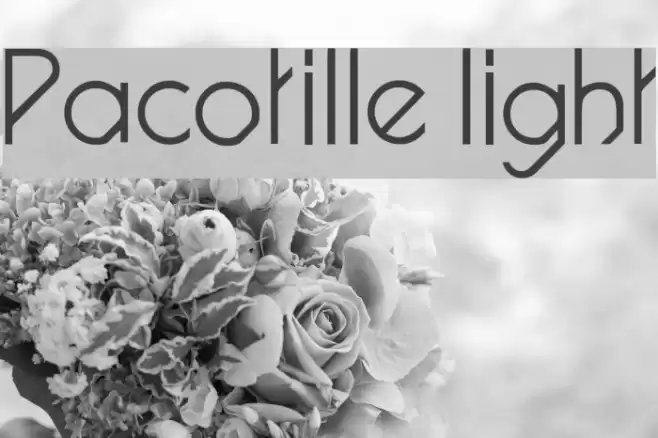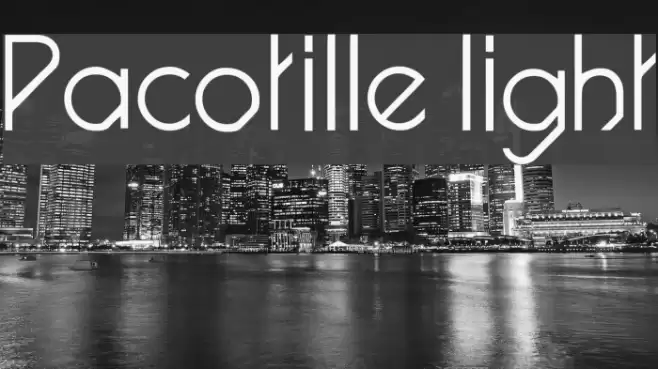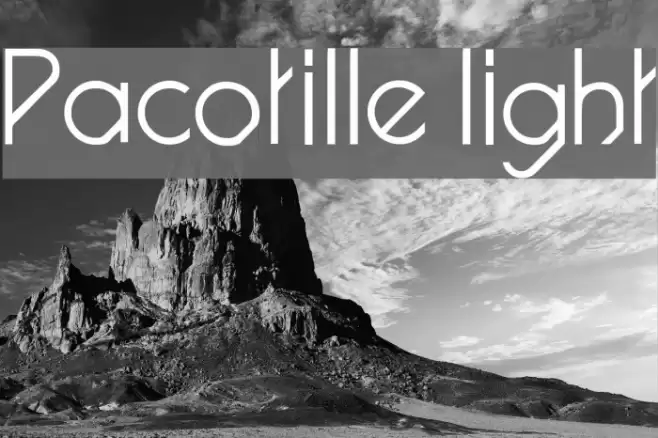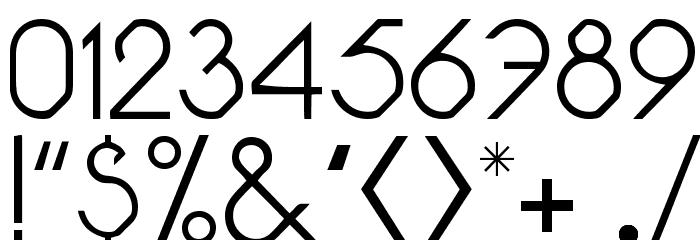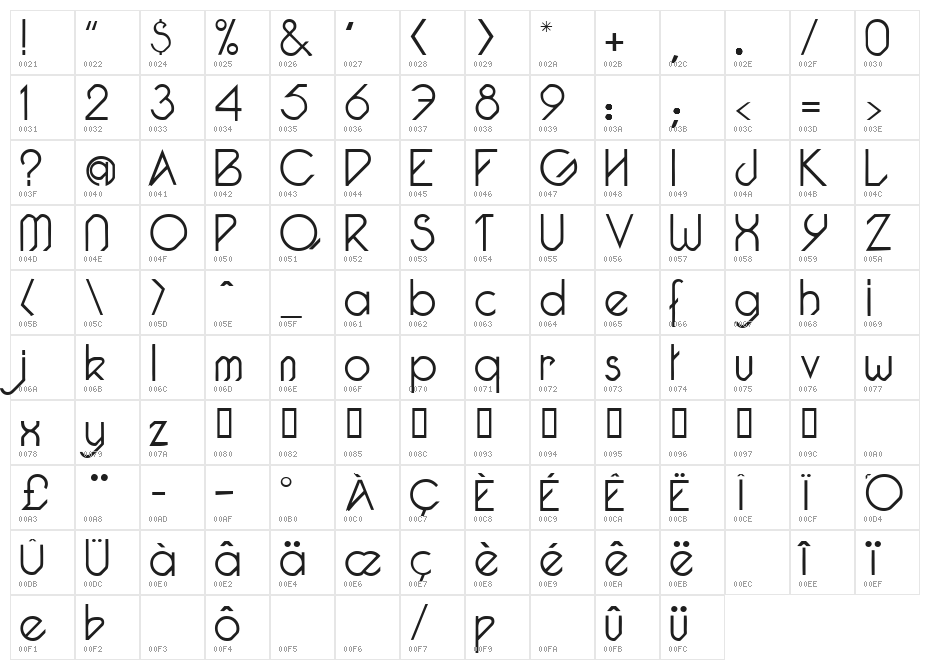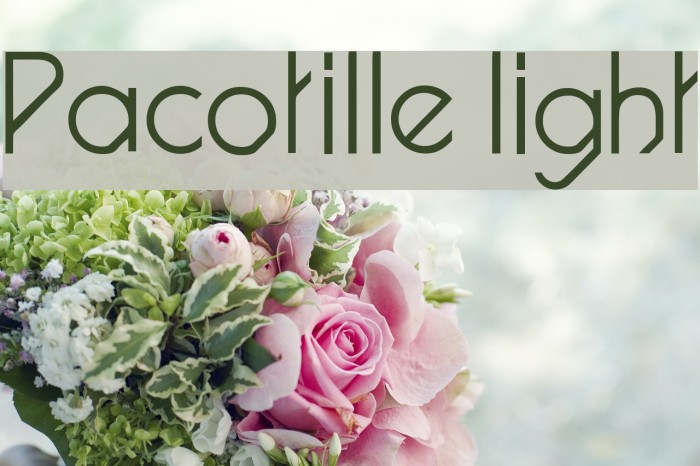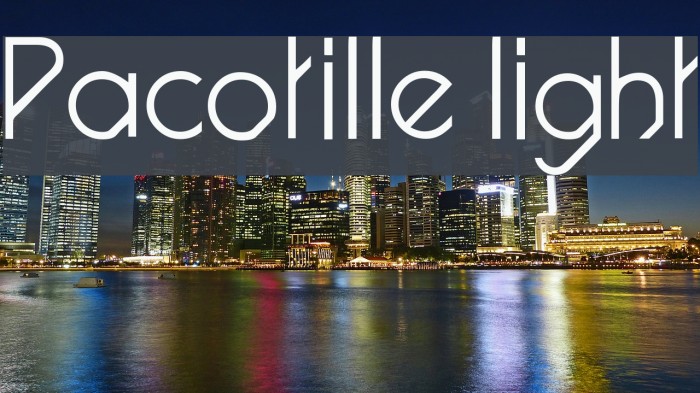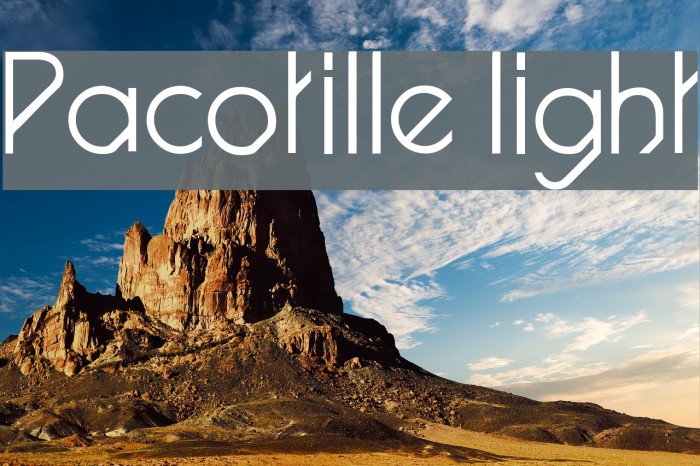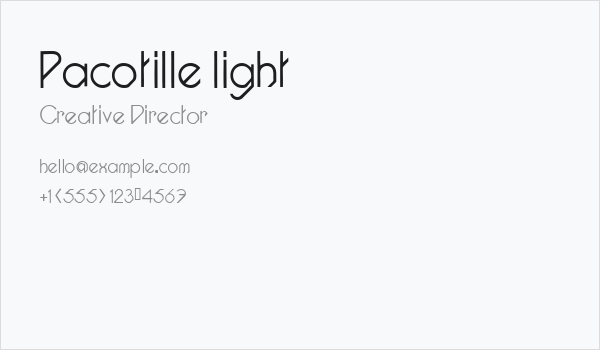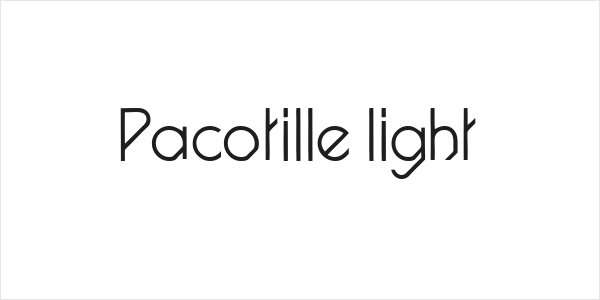
Pacotille light Font
Pacotille light Description
This font features a unique geometric design with a modern twist. The characters are constructed with clean, straight lines and sharp angles, giving it a futuristic and minimalist appearance. The uppercase letters are particularly striking, with some characters featuring unexpected cuts and angles that add visual interest. The lowercase letters maintain the geometric theme, with a consistent stroke width throughout. Numbers and special characters are designed to complement the letterforms, maintaining the overall aesthetic. The font's style is both distinctive and versatile, making it suitable for a variety of design projects.
A geometric, modern font with clean lines and sharp angles from Uncategorized fonts.
- Proposed Projects: Ideal for branding, logos, posters, and modern web design.